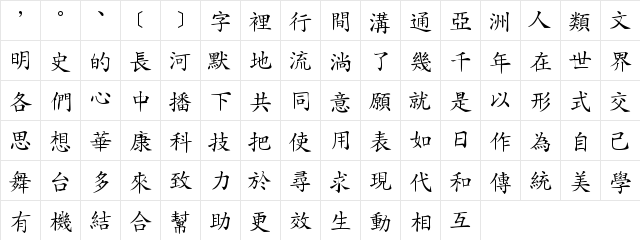
DFKaiShuMedium1B Regular
Design Context for DFKaiShuMedium1B Typeface
DFKaiShuMedium1B is a composed and adaptable typeface that performs quietly and consistently across a wide range of design contexts.